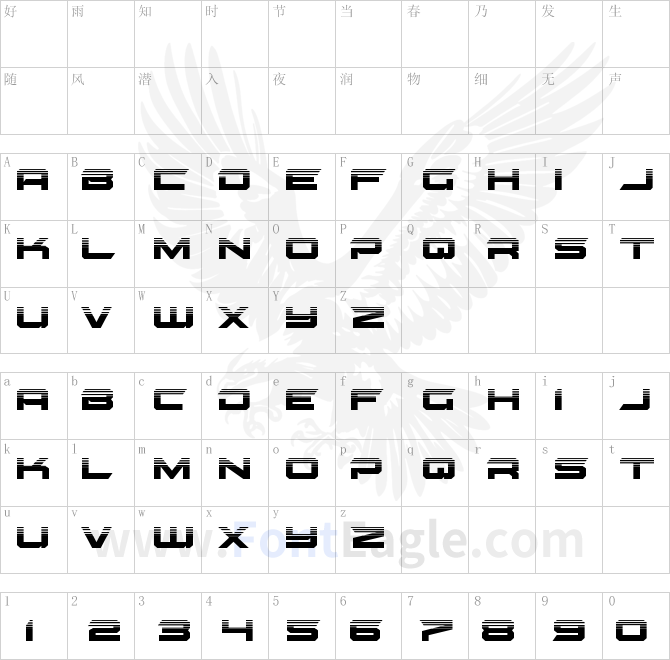
- Font name:Gypsy Killer Half-Tone
- Font Subfamily ID:Gypsy Killer Half-Tone Regular: 2015
- Font Full Name:Gypsy Killer Half-Tone Regular
- Font Version:Version 1.1; 2015
- Postscript:GypsyKillerHalf-Tone